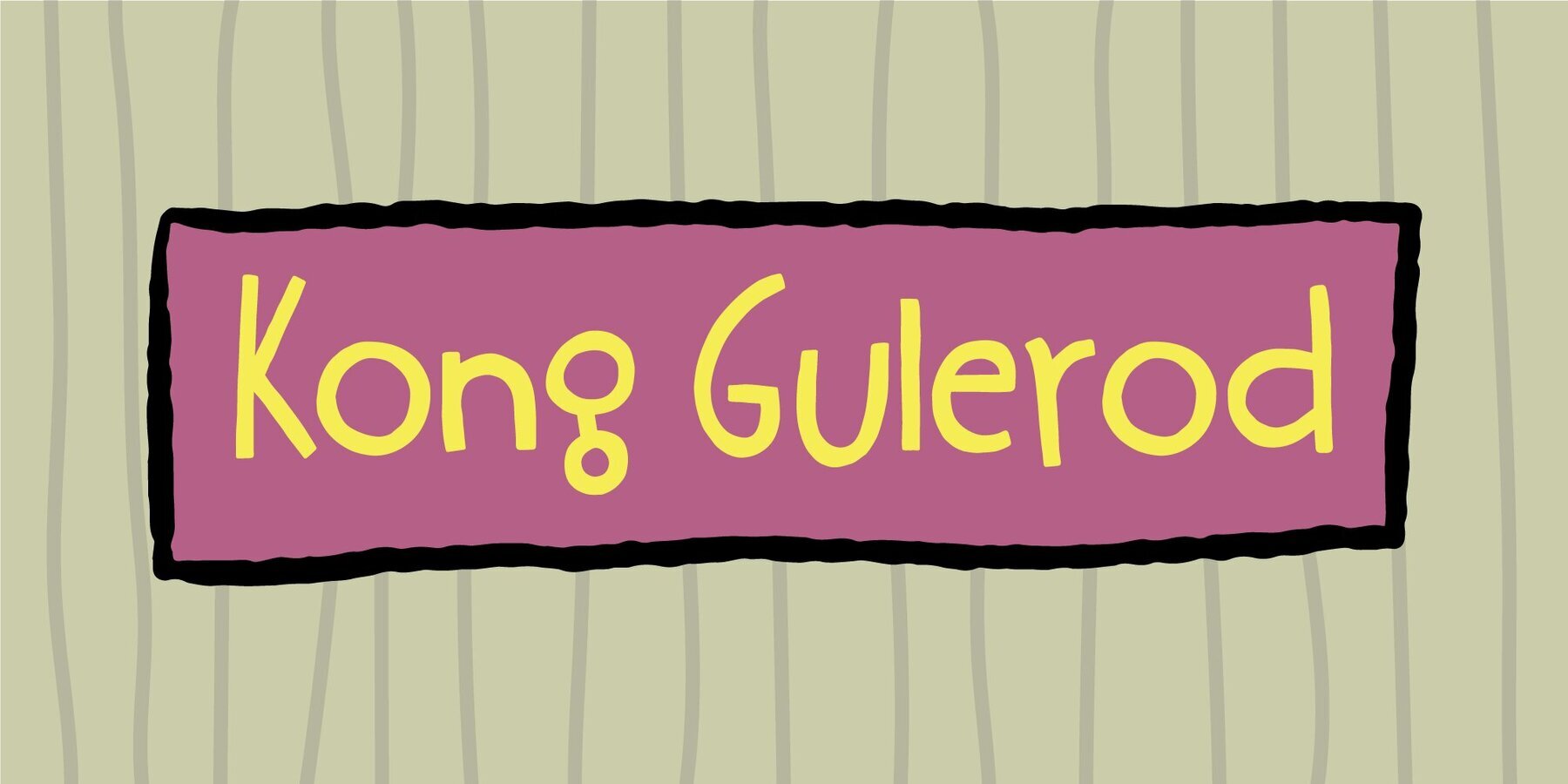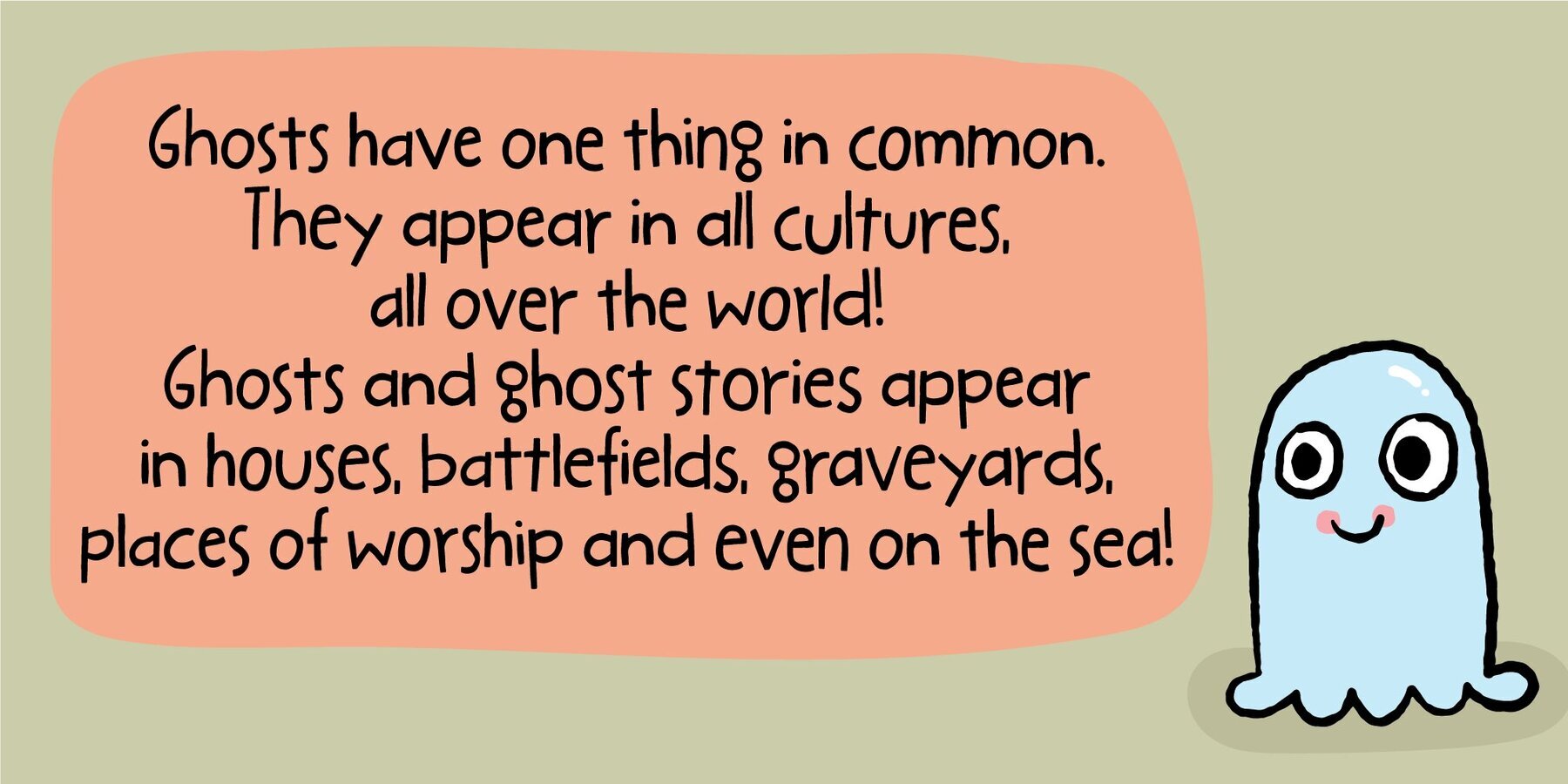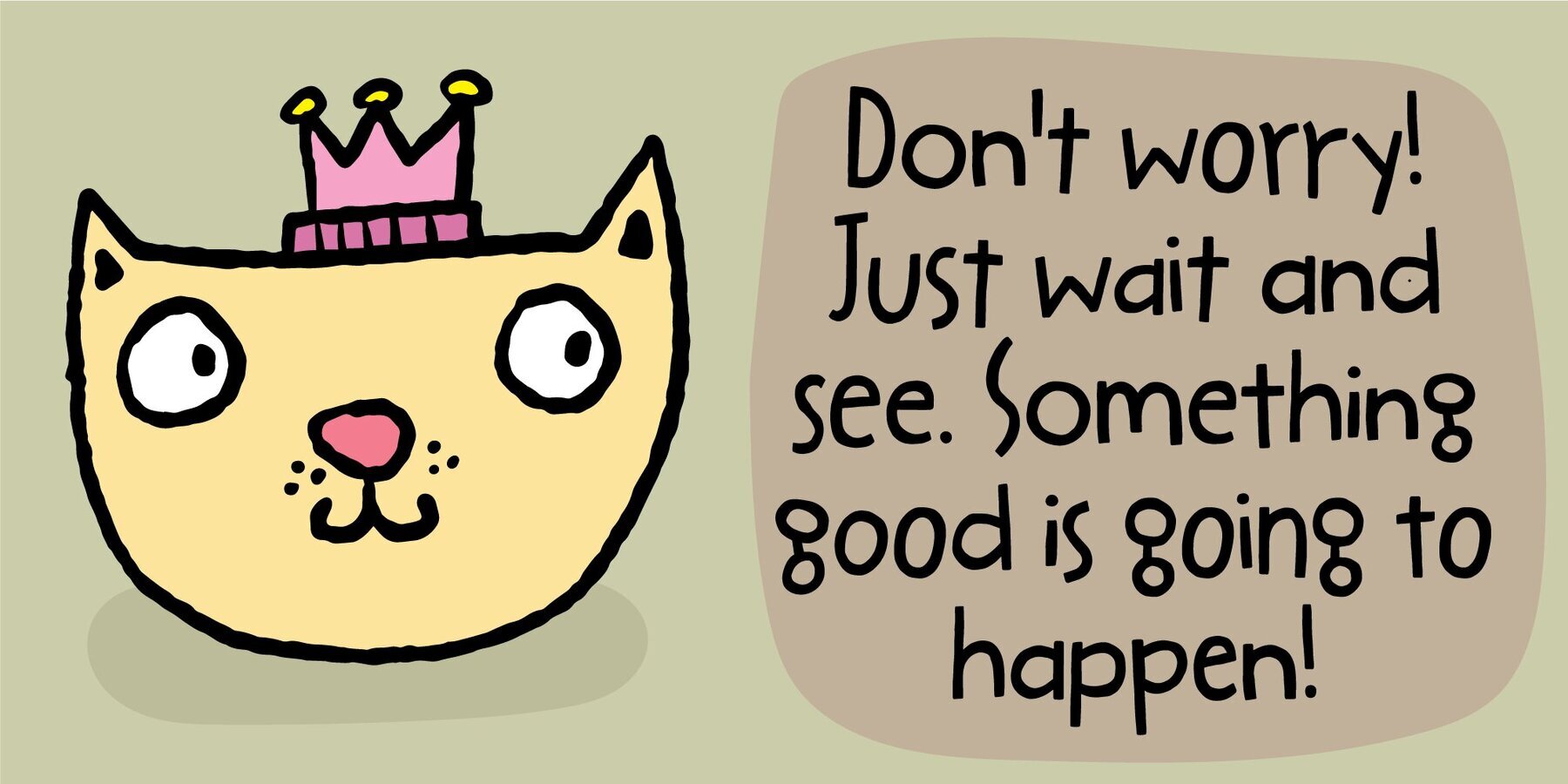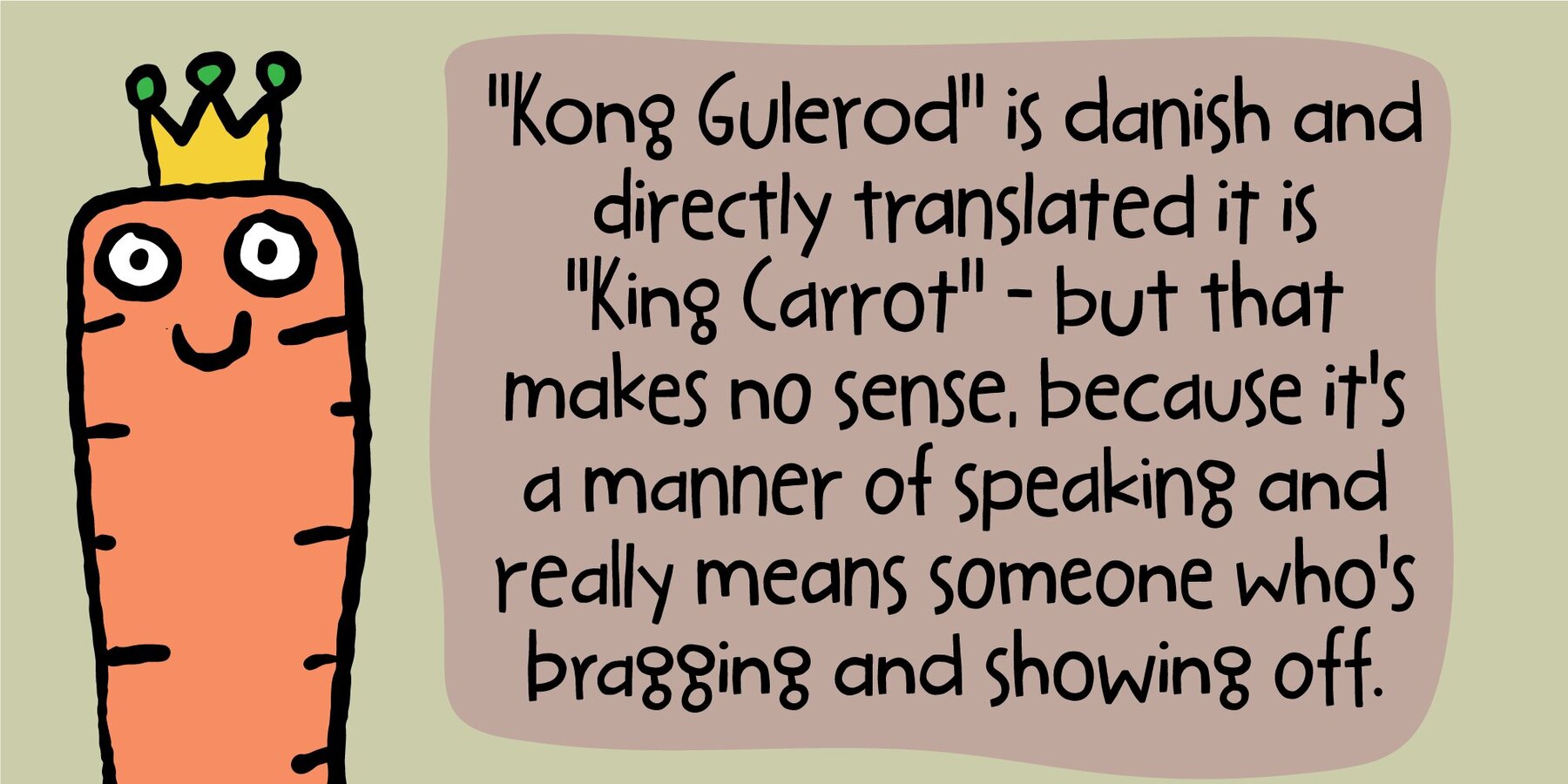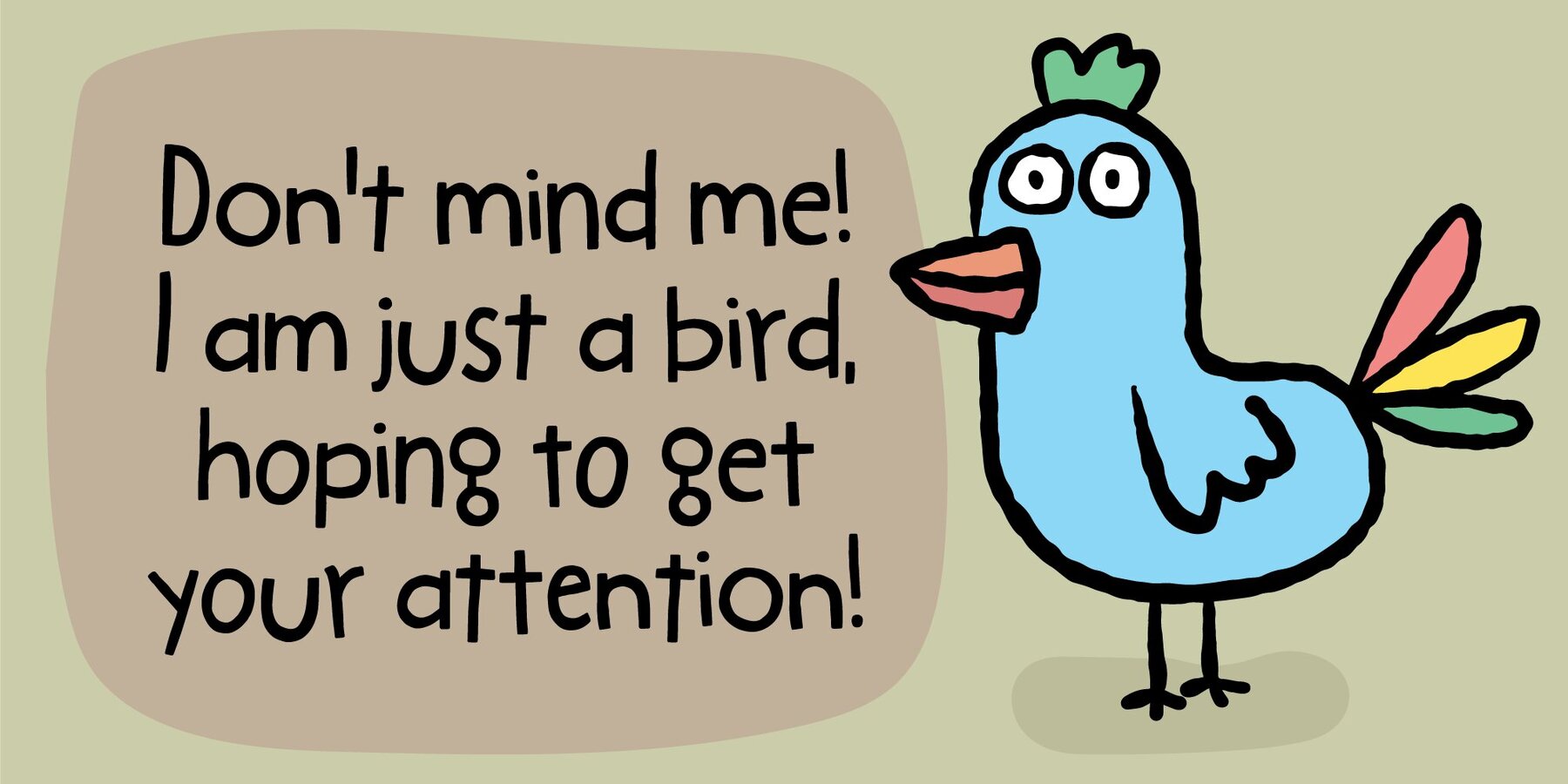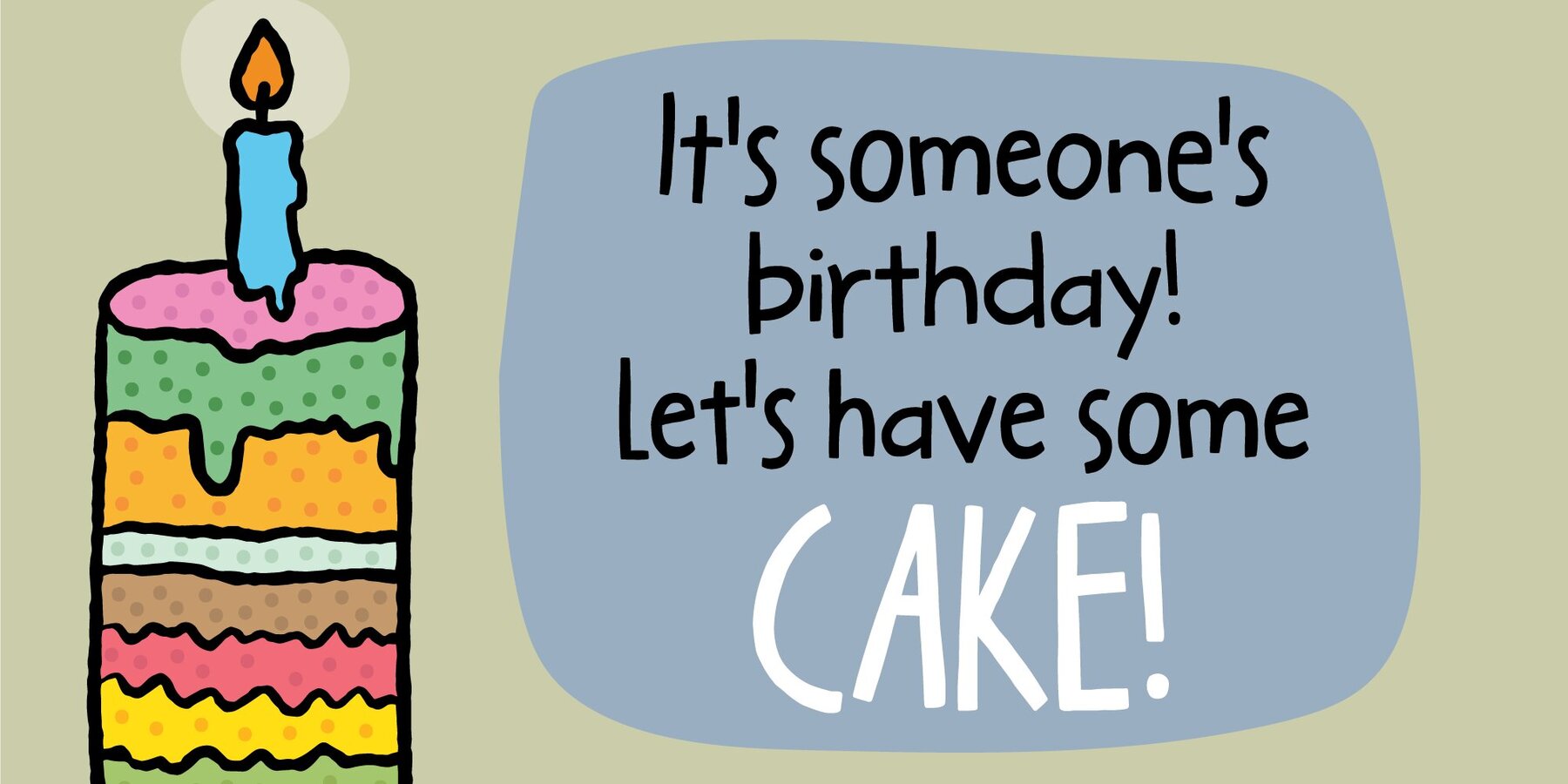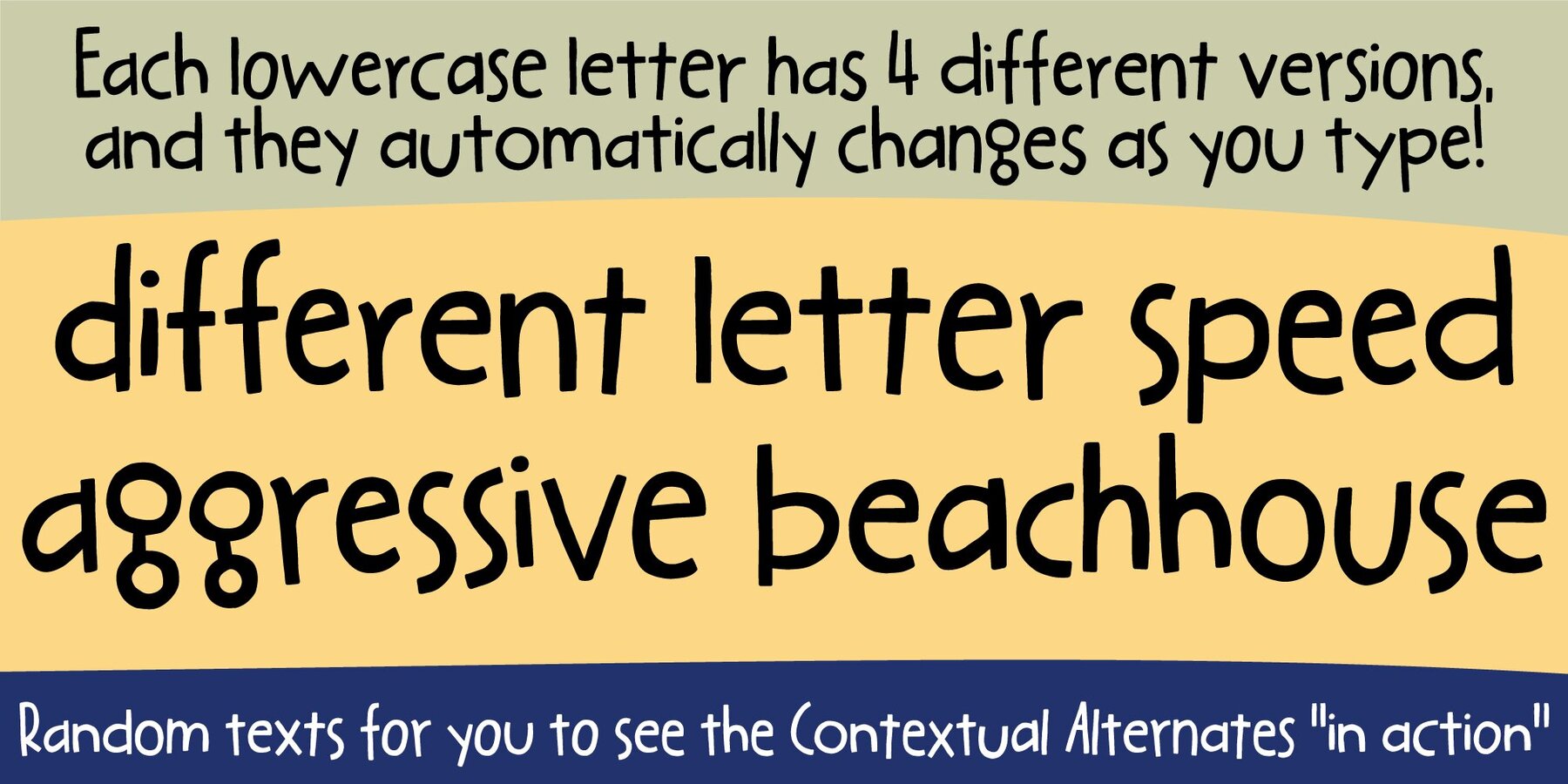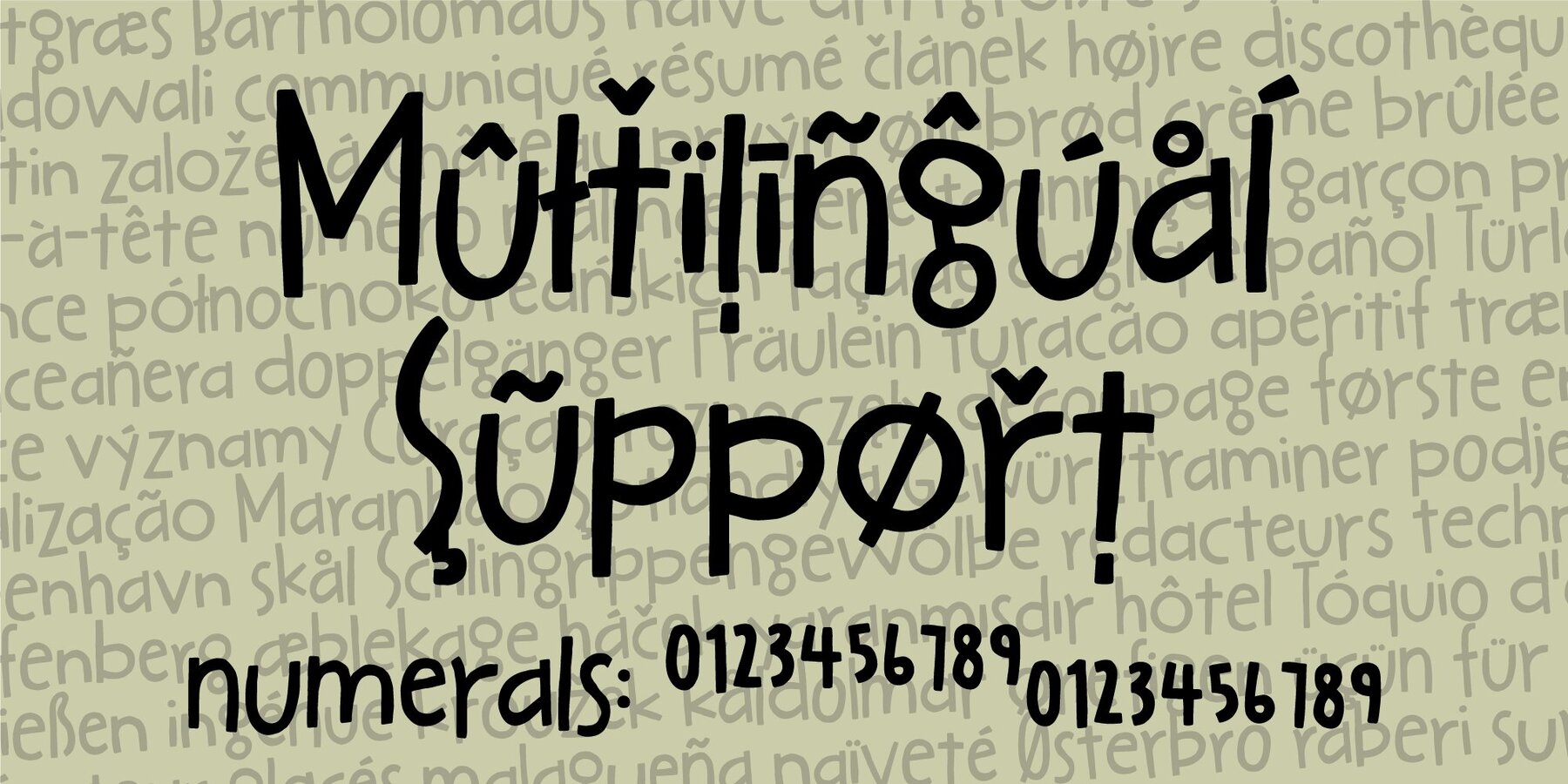
Kong Gulerod Font
Kong Gulerod is handmade, yet digitally remastered. I did my best to keep the whimsical and childlike looks, and keep the legibility. Use Kong Gulerod for massive amounts of text or for product labelling, maybe even educational materials for kids or creative minds. I have added 4 different versions of each lowercase letter, and they automatically change as you type!